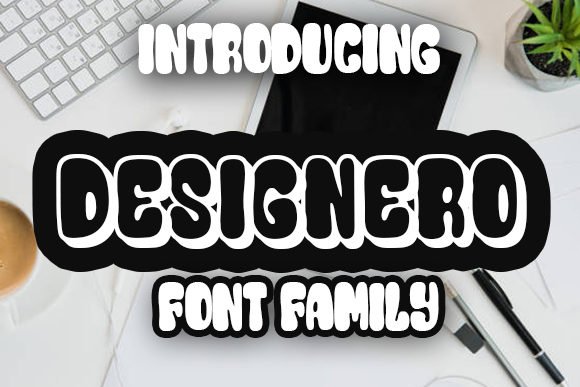
Unleash Your Creativity with Designero Font
Do you remember that moment when you stumbled upon the perfect font for your design project? The one that made everything fall into place and brought your vision to life? For designers, this feeling is what drives us to keep pushing the boundaries of creativity. And, we’re excited to introduce you to a font that’s about to become your new best friend – Designero Font.
Designed to add a touch of playfulness to your designs, Designero Font comes in three variants, each with its unique character. Whether you’re working on a logo, social media graphics, or a marketing campaign, this font is sure to elevate your designs and make them stand out. Its versatility and charm make it a valuable addition to any designer’s toolkit.
Designero Font Key Features
- Font Family: Designero Font is a unique, modern sans-serif font family designed for digital use.
- Character Set: The font includes a comprehensive character set, including Latin, Cyrillic, and Greek alphabets, as well as a wide range of punctuation and special characters.
- Unique Characteristics: Designero Font features a distinctive, rounded design with a high x-height, making it highly legible and suitable for use in a variety of contexts, including digital signage, web design, and print materials.
Designero Font Review
Overall, I think the Designero Font is a solid choice for designers, but it has its pros and cons. Here are my thoughts:
- ✨ The font’s unique aesthetic is really eye-catching and can add a touch of sophistication to any design.
- ✨ It has a wide range of weights, from light to bold, making it versatile for various design projects.
- ✨ The font is highly legible, even at smaller sizes, which is a big plus for designers who need to ensure their text is easily readable.
- ⚠️ The font may not be suitable for projects that require a more traditional or classic look, as it has a very modern feel.
- ⚠️ Some users may find the font’s unique style to be too bold or overpowering, so it’s essential to use it judiciously.
Overall, I think the Designero Font is a great choice for designers who want to add some flair to their work. Just be mindful of its limitations and use it thoughtfully.
Getting the Most Out of Designero Font
Here are some tips for getting the most out of Designero Font:
- Combine Designero Font with other fonts to create a unique look.
- Use Designero Font for headings and titles to make them stand out.
Designero Font is ideal for:
- Creating eye-catching headings and titles.
- Adding a touch of sophistication to your designs.
- Creating a unique and memorable brand identity.
- Choose a bold and bright color scheme to contrast with the sleek, modern typography of Designero Font.
- Use Designero Font for headings and key information, such as destination and travel dates.
- Pair Designero Font with vintage-style illustrations to create a unique blend of retro and futuristic elements.
- Use a combination of bold, sans-serif fonts for body text and Designero Font for headings to create visual hierarchy.
- Use Designero Font as the primary font for the brand name, taking advantage of its luxurious and modern feel.
- Customize the font by adjusting the color, size, and spacing to match the brand’s aesthetic.
- Pair Designero Font with a stylized monogram or crest to create a sense of heritage and tradition.
- Use metallic or high-contrast colors to give the logo a luxurious, high-end feel.